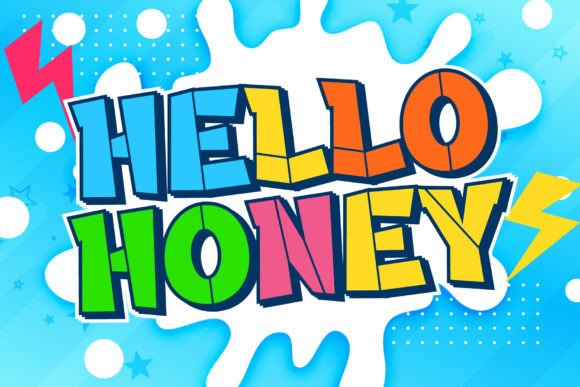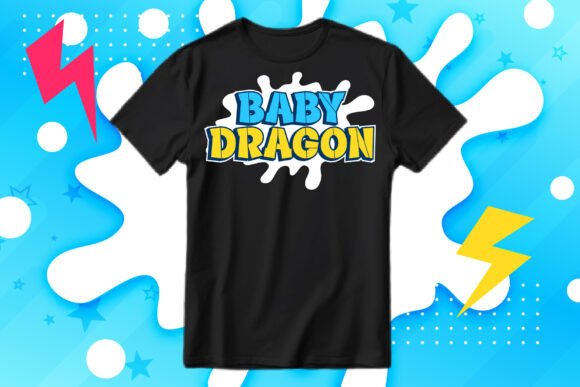
Cartoon Stencil Font
Cartoon Stencil is a fun and thick lettered display font. It is great for delivering any message with confidence, authenticity and charm. Use it for cartoons, magazine covers, games or pretty much anything that requires a jolly touch. Add this font to your urban and casual creations and you will love the outcome.